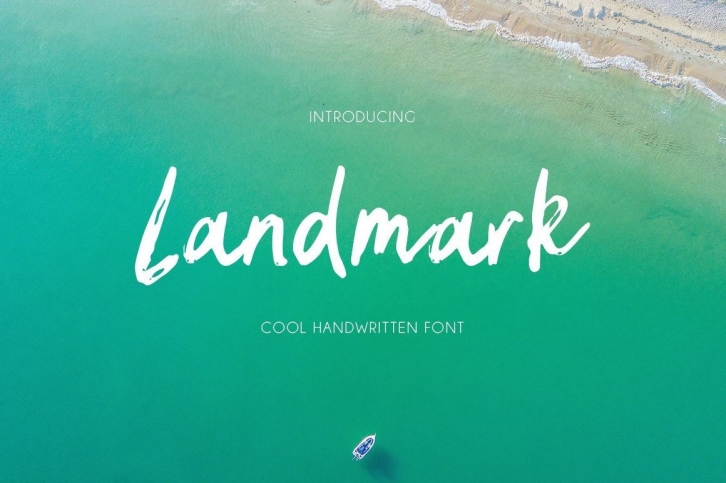
Landmark is a fun and friendly handwritten font. It has beautiful and well-balanced characters and as a result, it matches a wide pool of designs. Add it to your most creative ideas and notice how it makes them come alive!